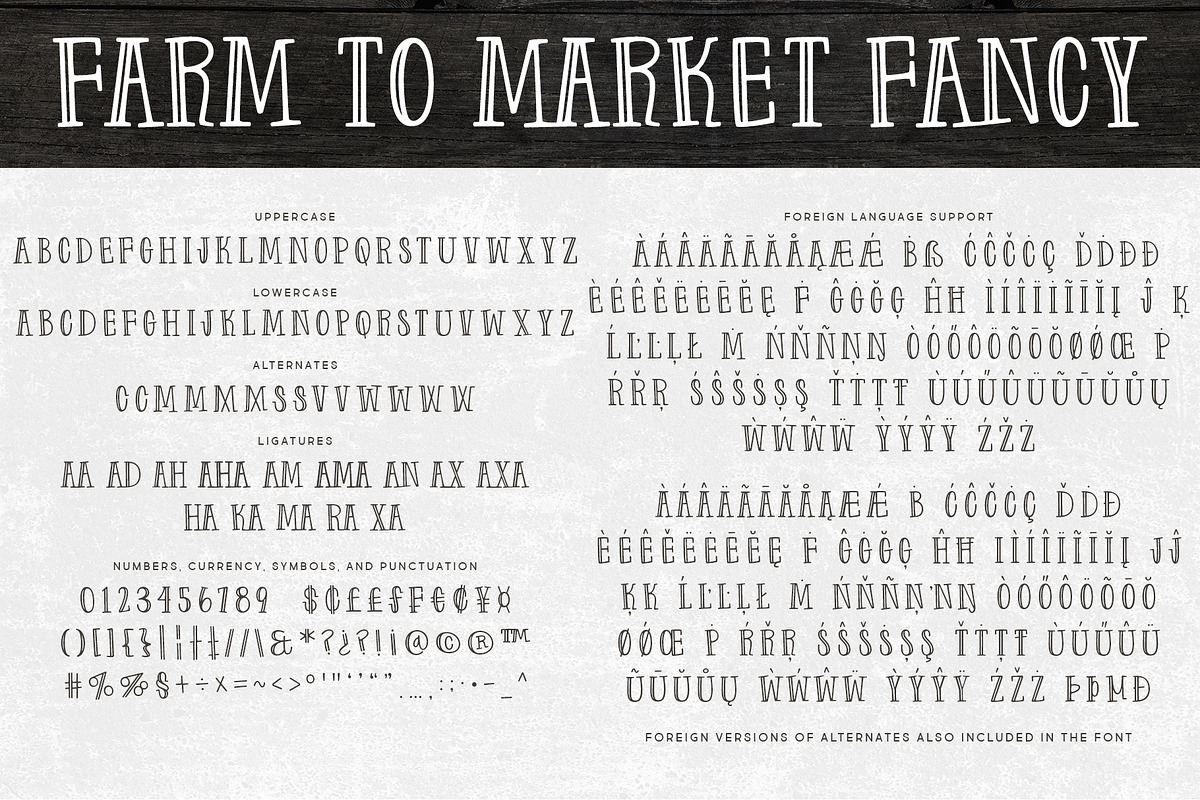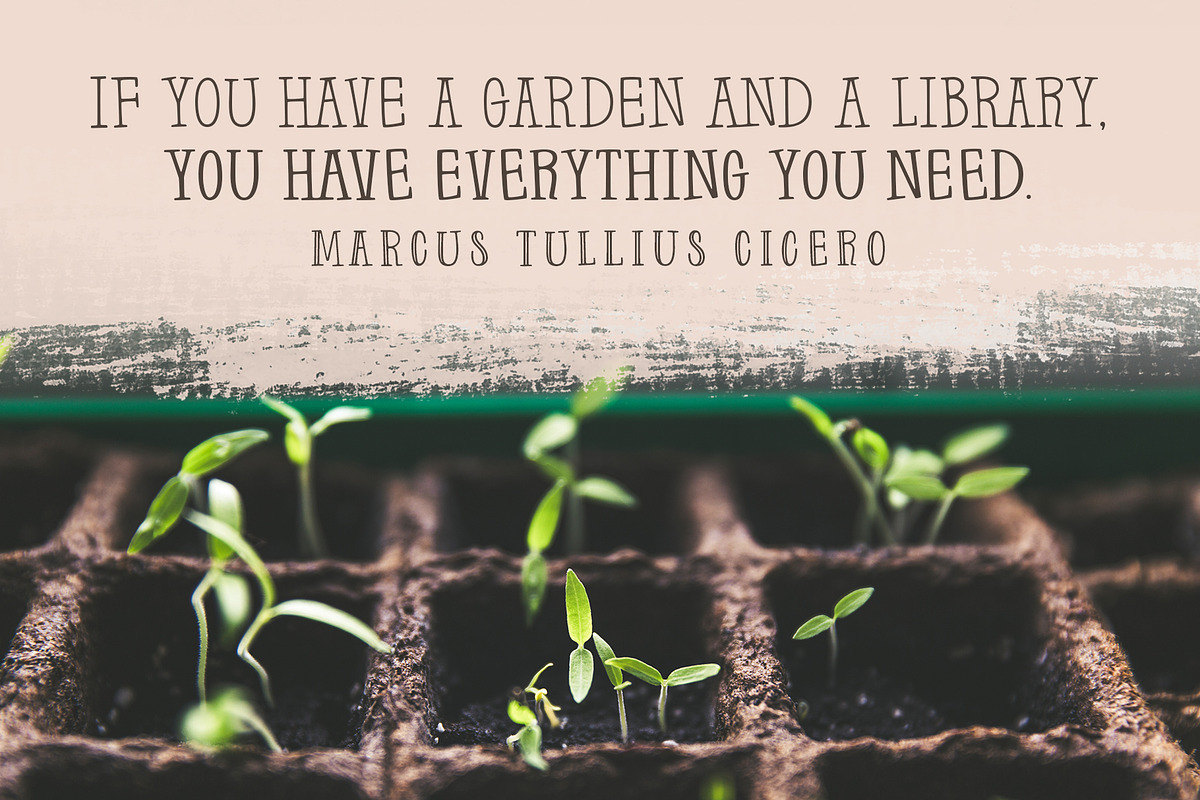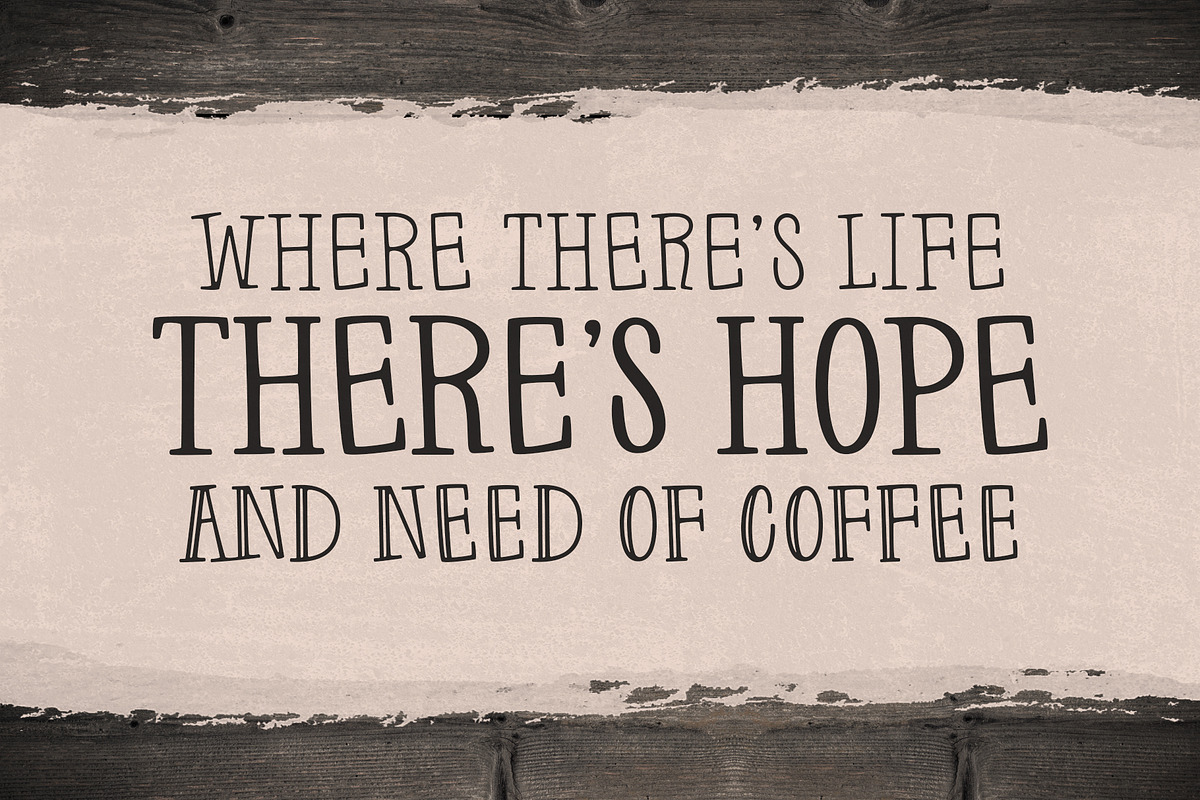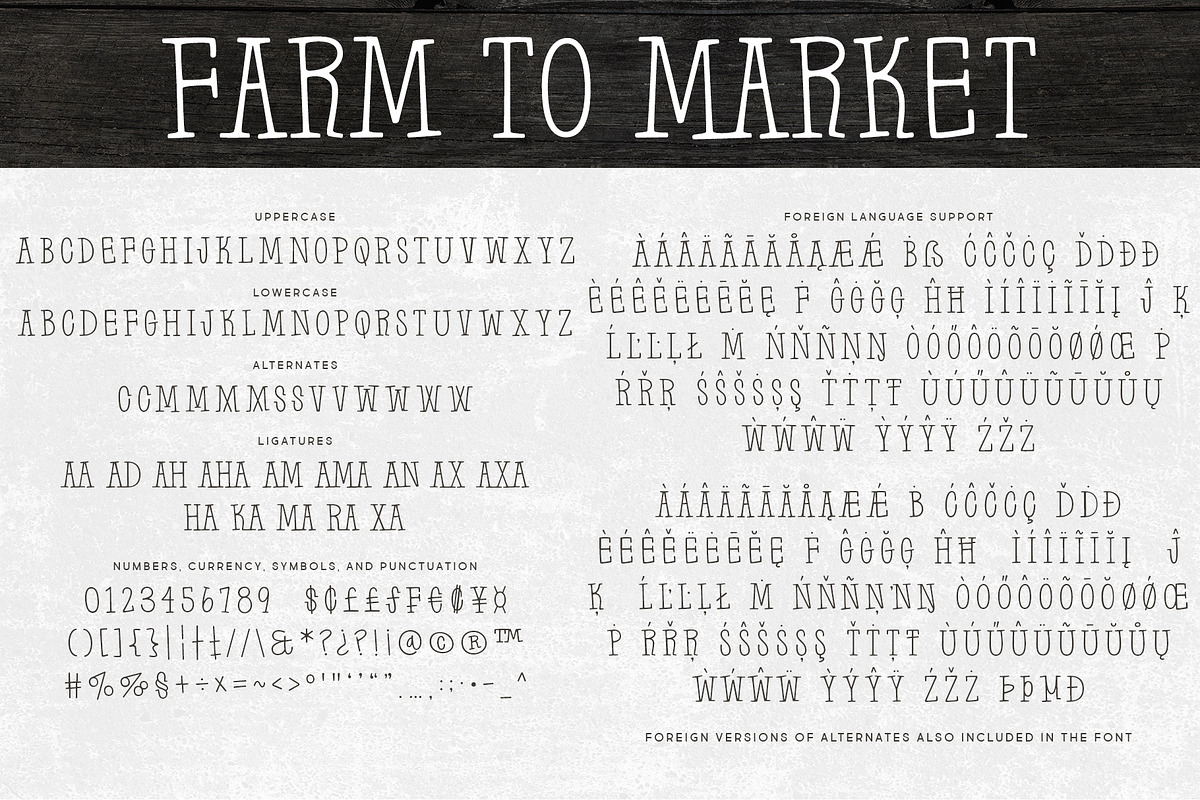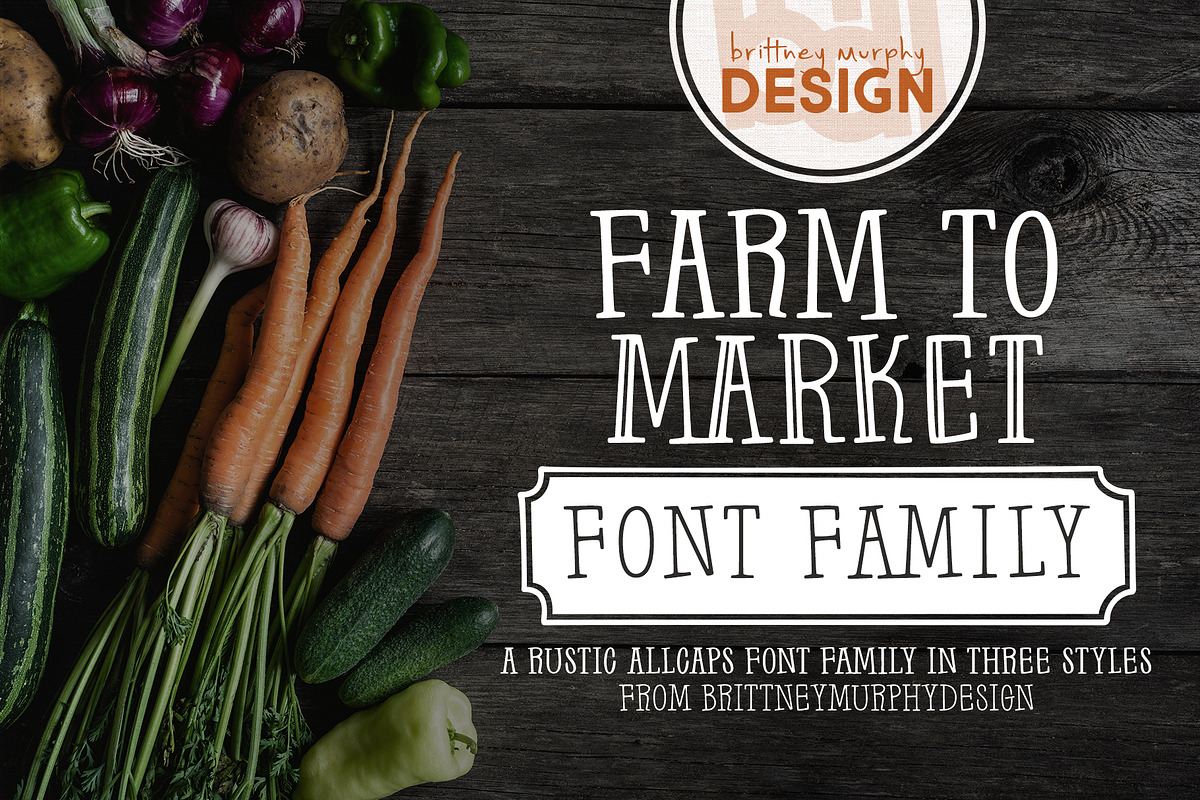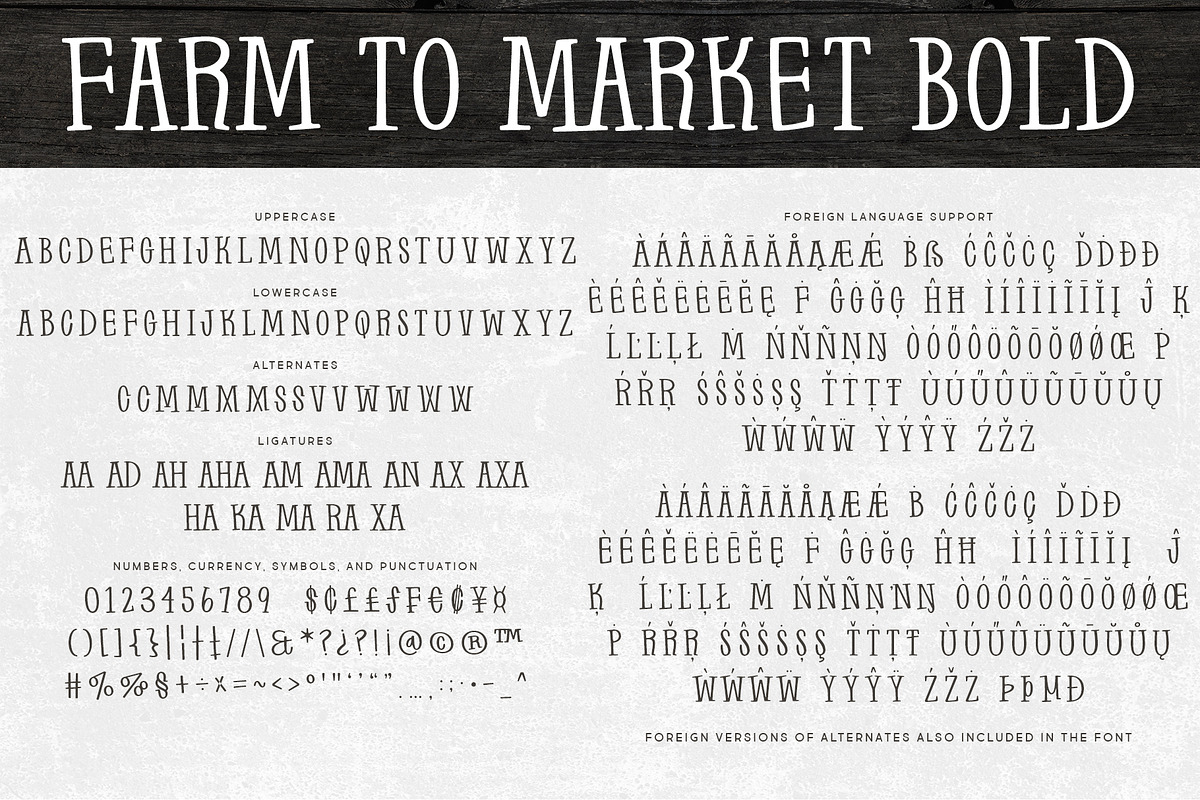
Farm to Market
Farm to Market is a rustic all caps serif font family from Brittney Murphy Design. Featuring a Regular, Bold, and Fancy version with 435+ glyphs in each. The Farm to Market Font Family supports most Latin based languages and has several ligatures and alternates. Great for crafts or decor with a country farmhouse feel! :)